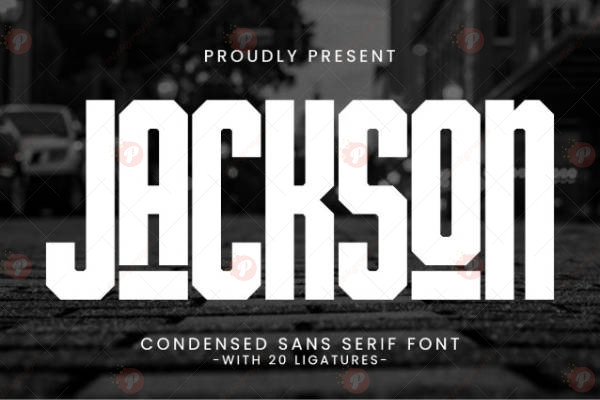
The Jackson Sans Serif Font Free is a modern and versatile sans serif typeface crafted for clean, bold, and professional designs. With its balanced spacing, smooth curves, and contemporary look, this font is perfect for logos, branding, editorial design, websites, posters, social media, packaging, and corporate projects.
Its minimalist and highly readable design makes it suitable for both headings and body text, ensuring a polished look across digital and print platforms. Whether you’re working on a business presentation, startup branding, or creative project, the Jackson Sans Serif Font Free delivers style with clarity.
Typeface: Sans Serif
Style: Modern / Clean / Bold / Minimalist
Perfect for: Logos, Branding, Posters, Packaging, Editorial, Web Design, Social Media
Elevate your typography with Jackson Sans Serif Font Free – the perfect blend of modernity and readability.